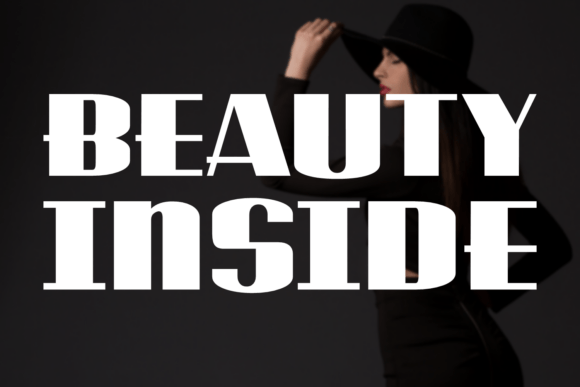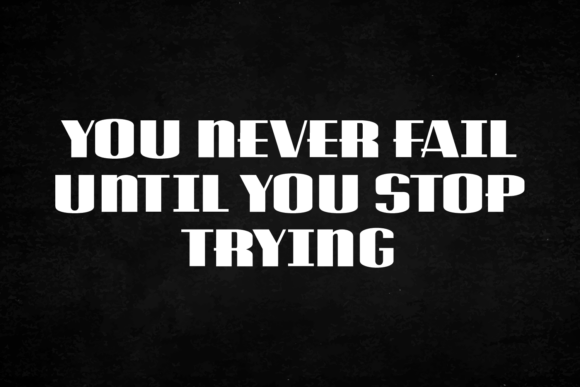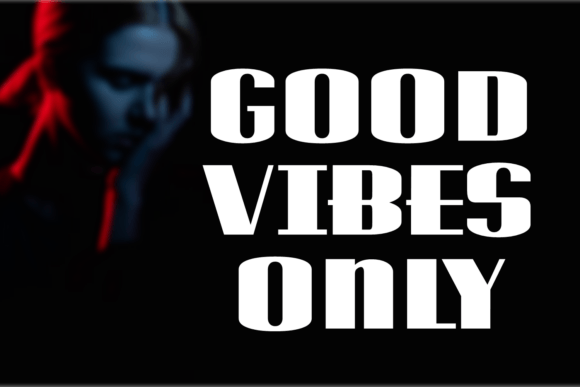
Introduction to Fresh Action Font
Have you ever stared at a blank page, eager to bring a design to life, only to be met with a sea of generic fonts that fail to capture the essence of your creative vision? This is where the magic of the Fresh Action Font comes in – a bold modern sans serif font that injects personality into any design project. Whether you’re crafting a captivating book cover, creating a stunning greeting card, or developing a brand identity that screams authenticity, this font is the perfect companion for designers seeking to elevate their work.
With its clean, charming structure and smooth, rounded lines, the Fresh Action Font is a versatile design resource that’s ready to be unleashed on your next creative project. From free download to high-quality applications, this font is a valuable addition to any designer’s toolkit, offering a transparent background that lets your design shine. Whether you’re working on a personal project or a commercial venture, the Fresh Action Font is sure to deliver the results you’re looking for.
Key Features of Fresh Action Font
- High-quality design resource perfect for creative projects requiring a modern and energetic feel.
- Unique characteristics include dynamic letterforms, bold lines, and a fresh, modern aesthetic.
- Designed to be versatile and adaptable for use in a wide range of creative projects, from logos to typography.
Honest Review: Fresh Action Font
I recently stumbled upon the Fresh Action Font while searching for a high-quality design resource for a creative project. After trying it out, I must say it’s been a game-changer for my designs.
- ✨ High-quality glyphs that are easily readable
- ✨ Transparent background option that allows for seamless blending with other design elements
- ⚠️ Limited font styles and weights available for download
- ⚠️ Some users may find the font too bold or overpowering for certain designs
Overall, I’m quite impressed with the Fresh Action Font and would highly recommend it to designers looking for a high-quality, free design resource for their creative projects. While it may have some limitations, the benefits far outweigh the drawbacks in my opinion.
Tips for Getting the Most Out of Fresh Action Font
For optimal results, use Fresh Action Font in conjunction with other high-quality design elements. Experiment with different font sizes, colors, and combinations to create a unique and engaging visual style.
Common Use Cases for Fresh Action Font
Fresh Action Font is ideal for a variety of creative projects, including graphic design, social media graphics, marketing materials, and presentations. Its high-quality design and transparent background make it a versatile and useful design resource.